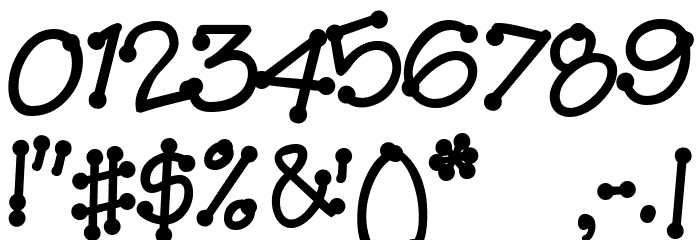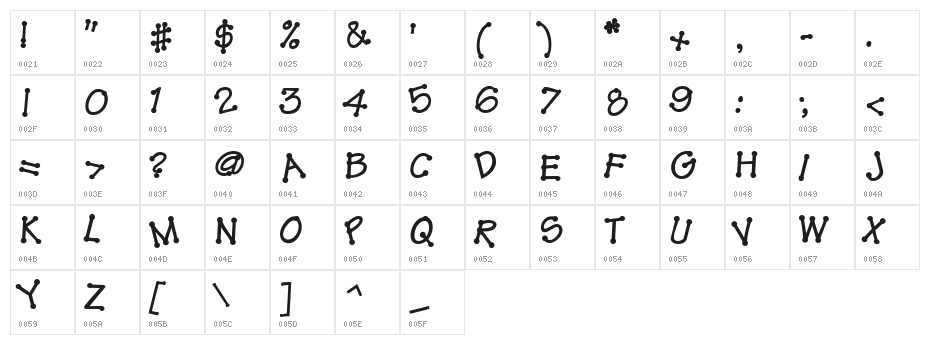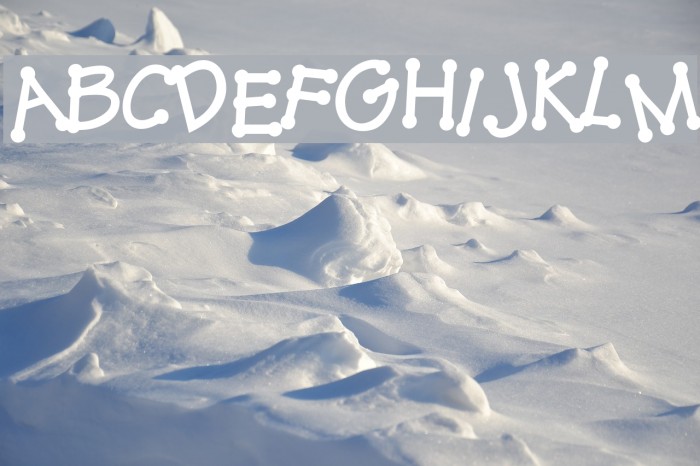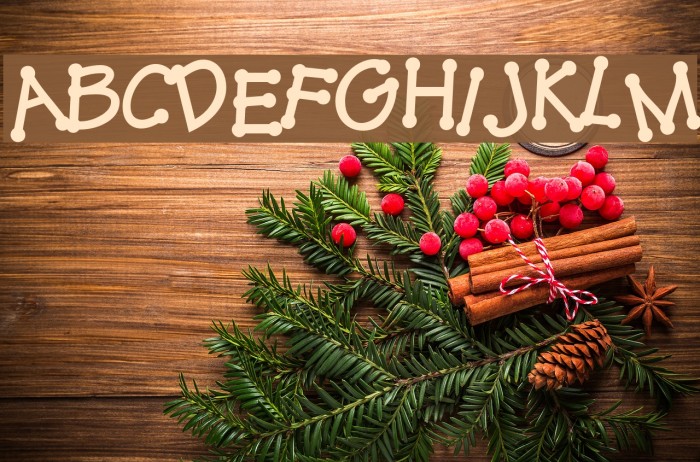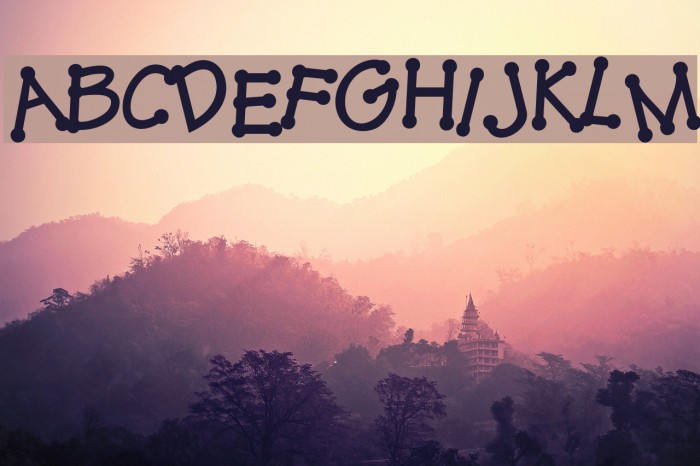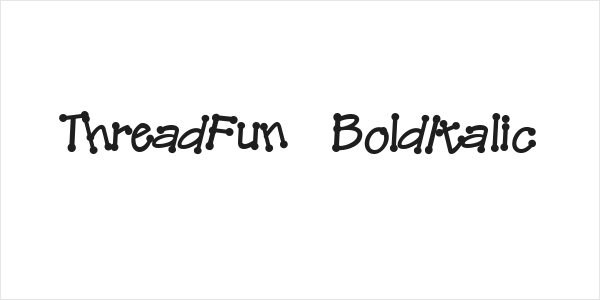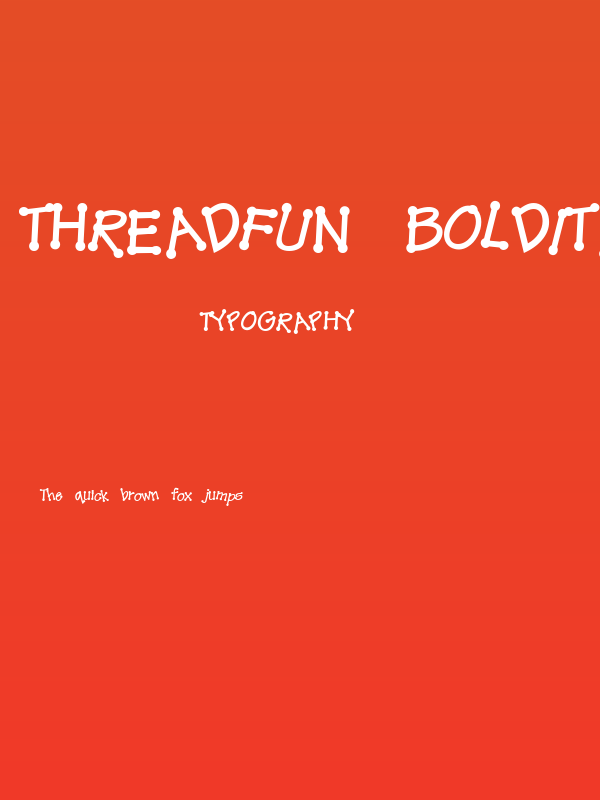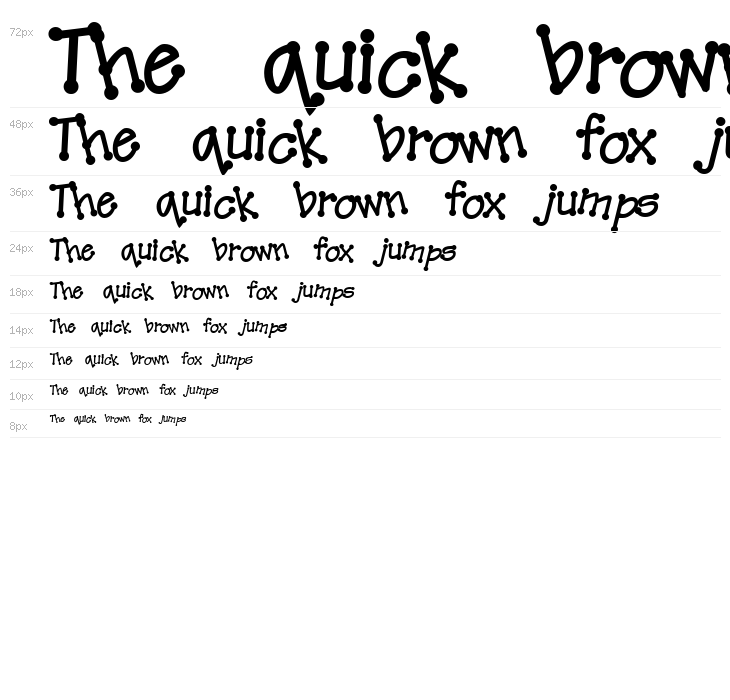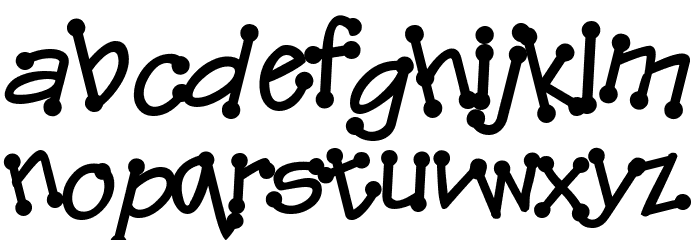
ThreadFun BoldItalic Font
ThreadFun BoldItalic Description
This playful and whimsical font features bold, rounded characters with a unique, hand-drawn appearance. Each letter is connected by small dots, giving it a fun and casual look. The strokes are consistent in thickness, providing a uniform appearance across all characters. The font includes both uppercase and lowercase letters, numbers, and a variety of special characters. Its bold and italic style adds a dynamic and energetic feel, making it suitable for creative and informal projects.